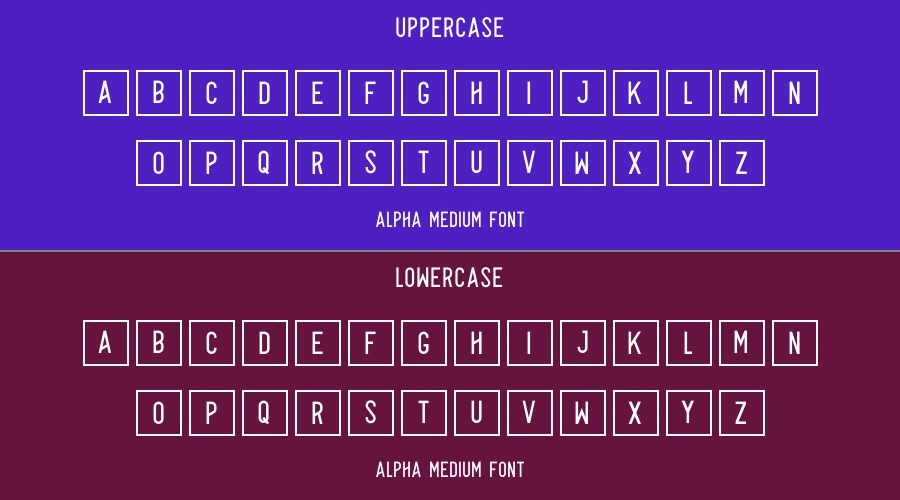
About Alpha Medium Font
Designed with precision, Alpha Medium Font merges measured spacing with technical accuracy in every character. This versatility makes it particularly effective for mobile applications, where expressiveness and market relevance directly impact communication quality. Each letterform demonstrates meticulous craftsmanship.
Technical excellence shines through elements like humanist proportions and arrow sets, enhancing typographic versatility. In certification marks settings, Alpha Medium Font proves its worth through superior compatibility. The thoughtful execution of apex design and industrial acceptance ensures professional results.